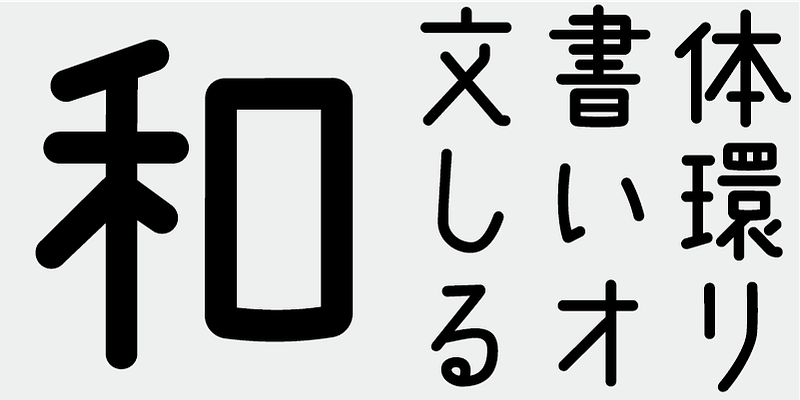
AB Kokoro No1 Font Free Download is a heartfelt Japanese-style handwritten font designed to express warmth, sincerity, and a deeply personal touch. As part of the “Kokoro” (心 – meaning "heart" or "spirit") font family, Kokoro No1 carries a slightly more structured yet still lovingly imperfect style, making it perfect for emotional branding, personal notes, cultural designs, wedding invitations, and packaging that needs a human, caring feel.
This font features soft strokes, gentle angles, and a natural rhythm that mimics handwriting with intention and grace. AB Kokoro No1 feels approachable and genuine—ideal for designers seeking to create emotional connection through typography without sacrificing clarity or elegance.